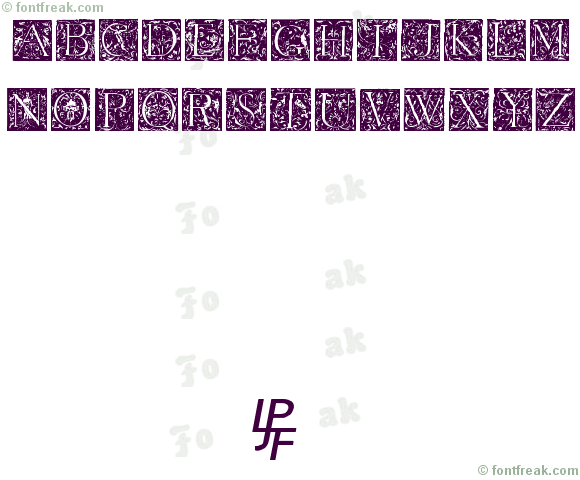
Grimeswade
Grimeswade, designed by Paul Lloyd in 2002, is a captivating decorative font that embodies a unique blend of vintage elegance and modern flair. As a freeware typeface, it is accessible for a variety of creative projects, making it a popular choice among graphic designers and content creators. The font features ornate letterforms with intricate detailing that evoke a sense of artistry and craftsmanship. With its moderate stroke weight and consistent contrast, Grimeswade provides a balanced visual appeal that stands out in any design.
The spacing in Grimeswade is thoughtfully arranged, allowing for clear readability while maintaining its decorative nature. The font is adorned with stylized elements that enhance its character without overwhelming the viewer, making it an excellent choice for those looking to add a touch of sophistication to their designs. Ideal use cases for Grimeswade include wedding invitations, where its elegant style can complement romantic themes, as well as movie posters that require a distinctive title treatment. It also works beautifully for restaurant menus, adding a touch of class, or in branding materials for artisanal businesses seeking to convey a sense of tradition and quality.
The target audience for Grimeswade includes graphic designers, small business owners, and anyone looking to elevate their visual communications with a unique typeface. Whether you're crafting a personal project or a professional branding campaign, Grimeswade offers versatility and charm.